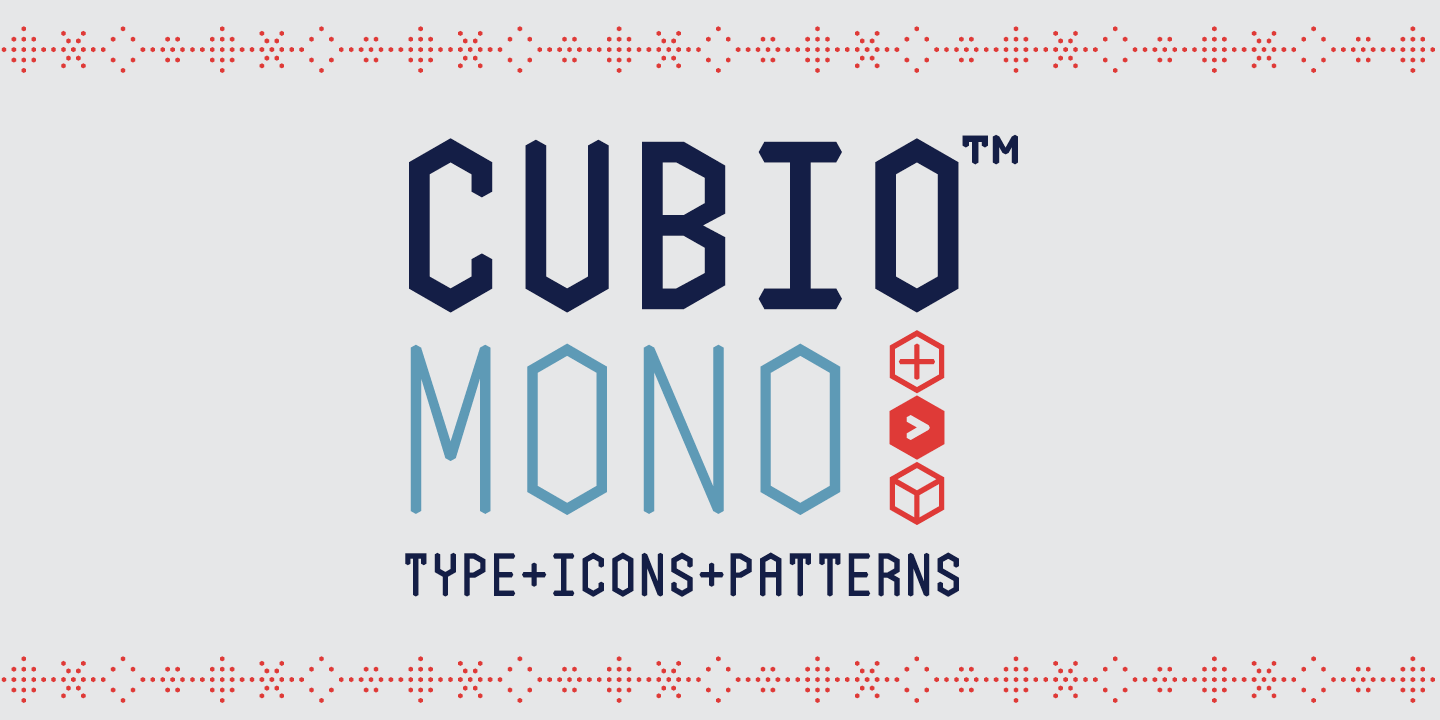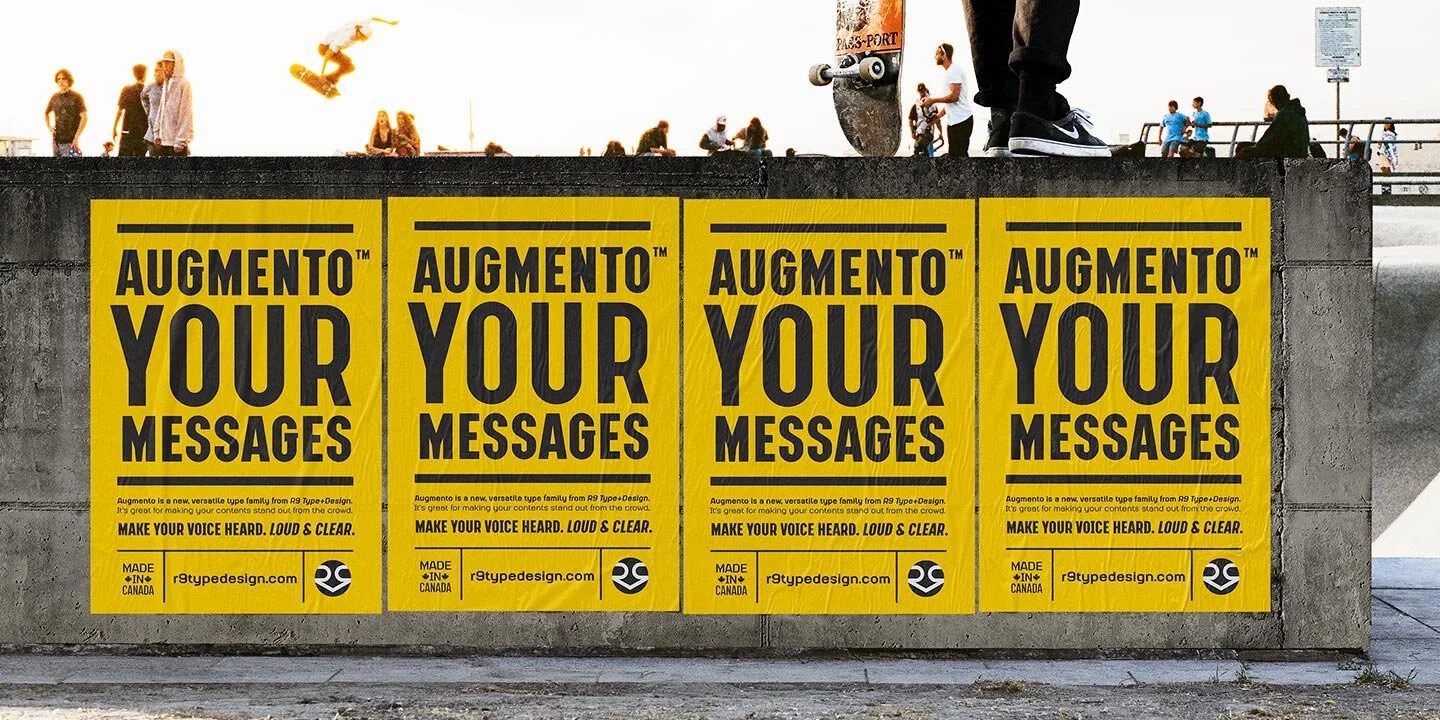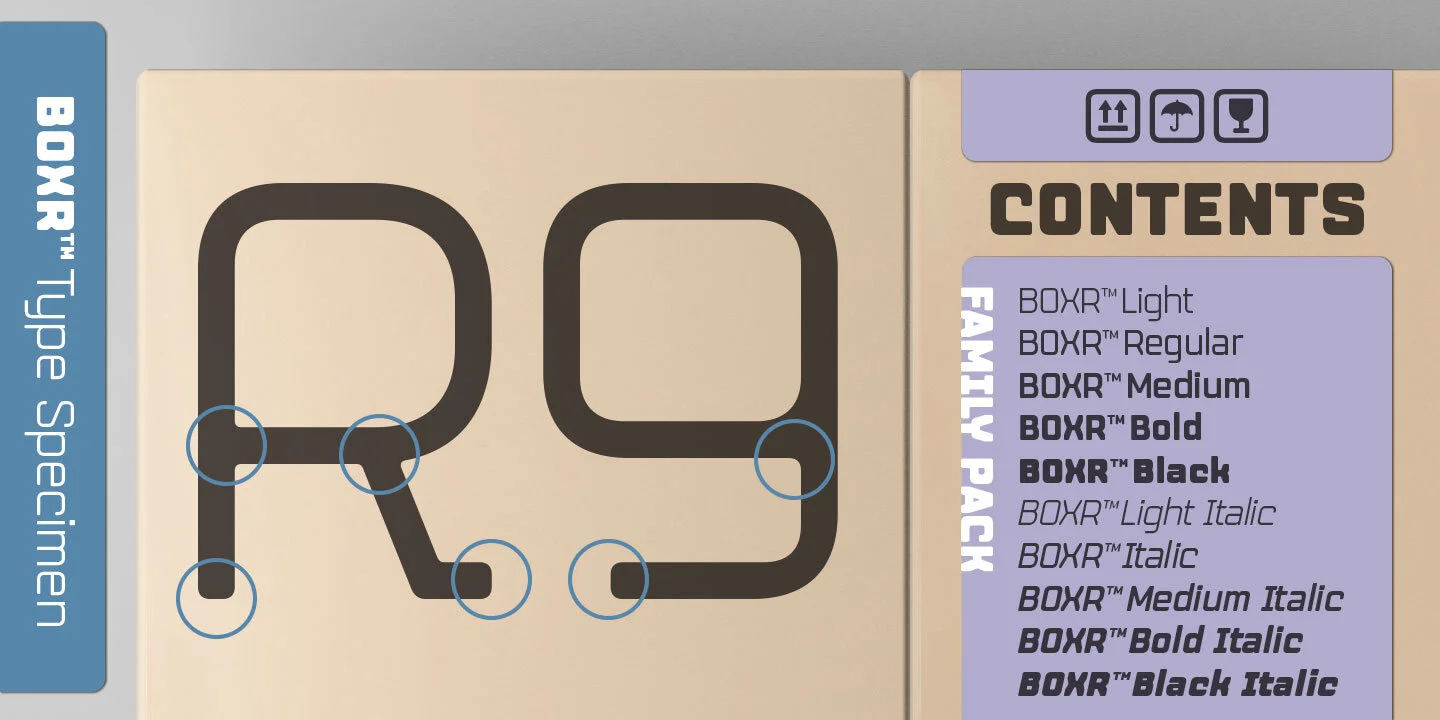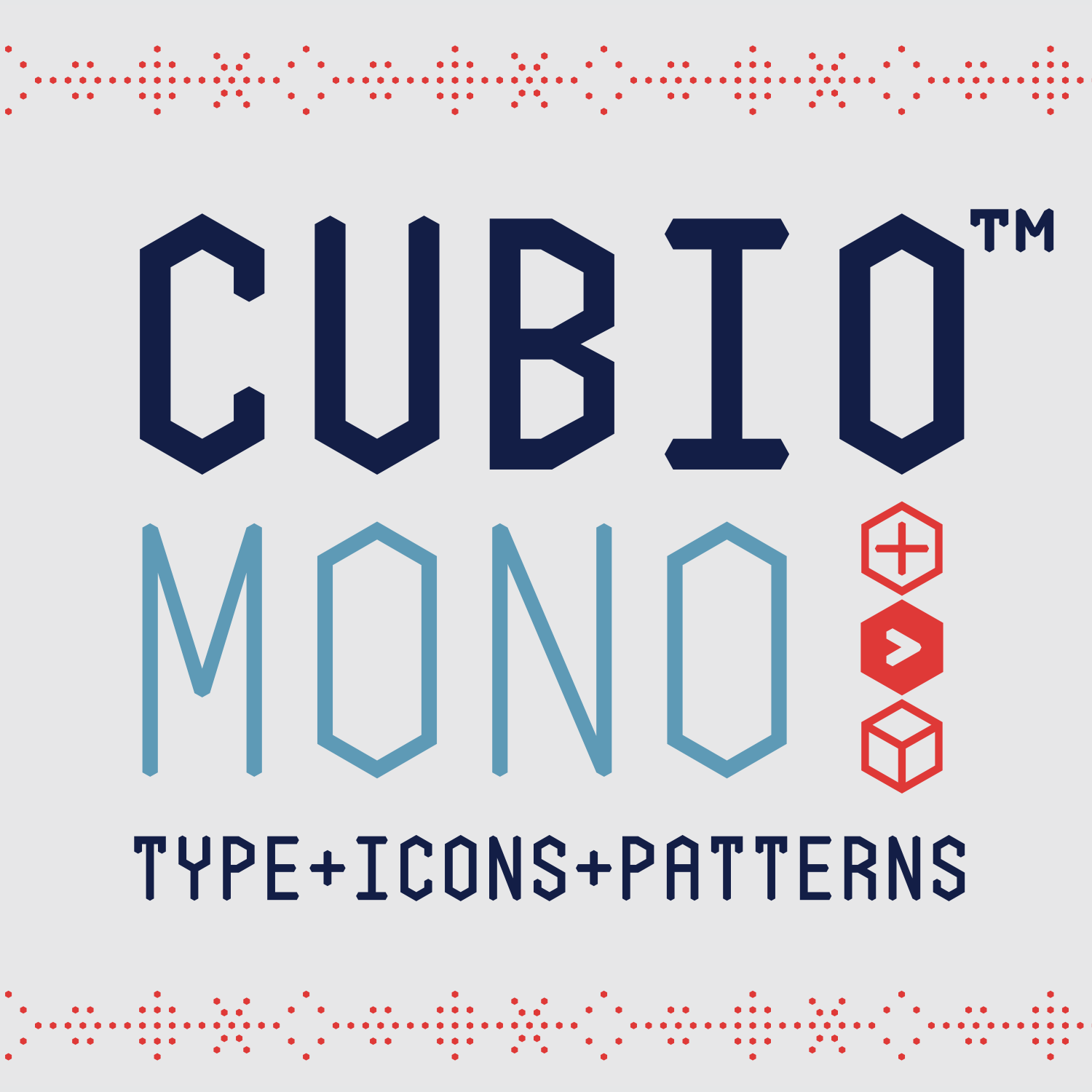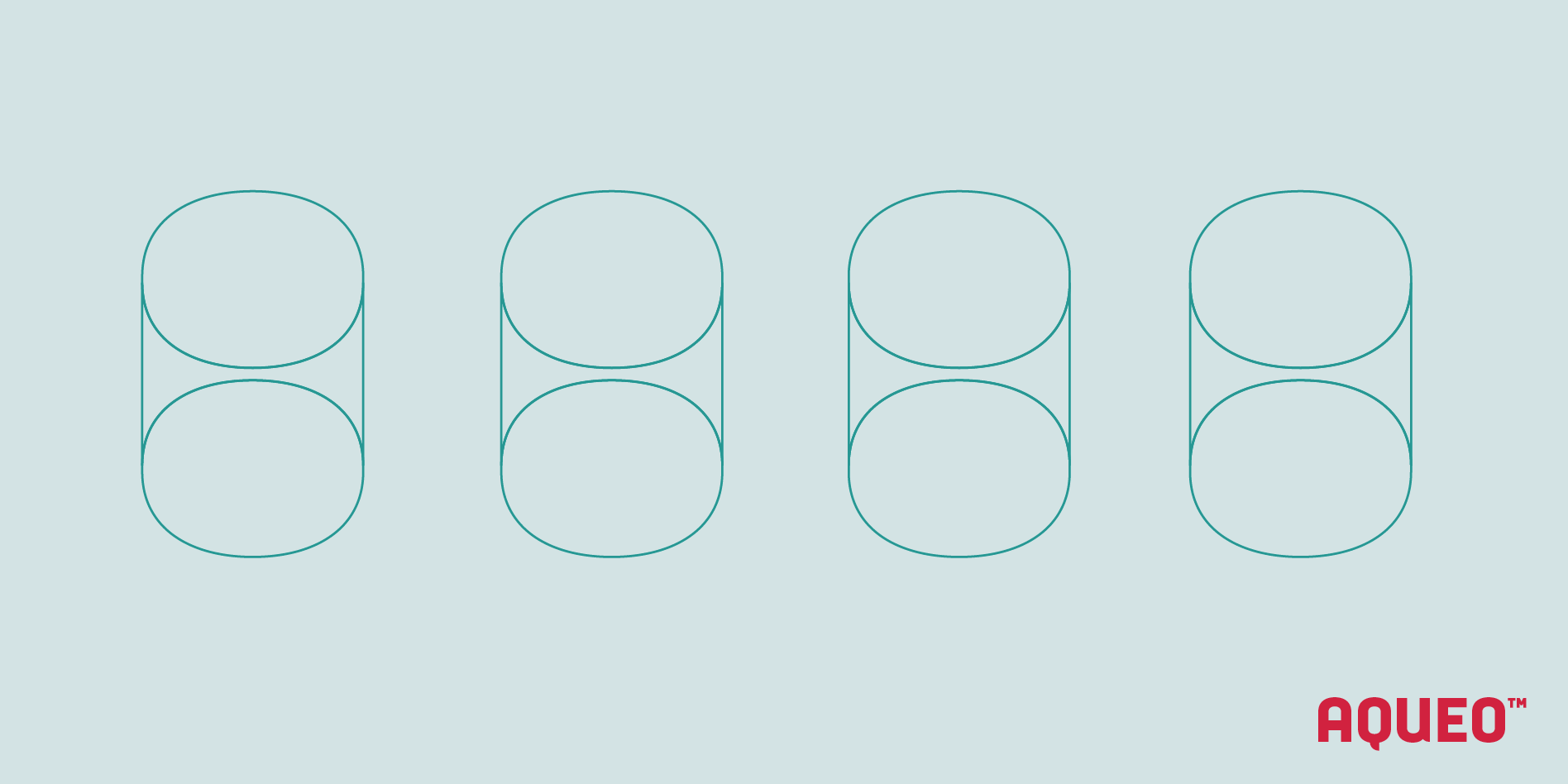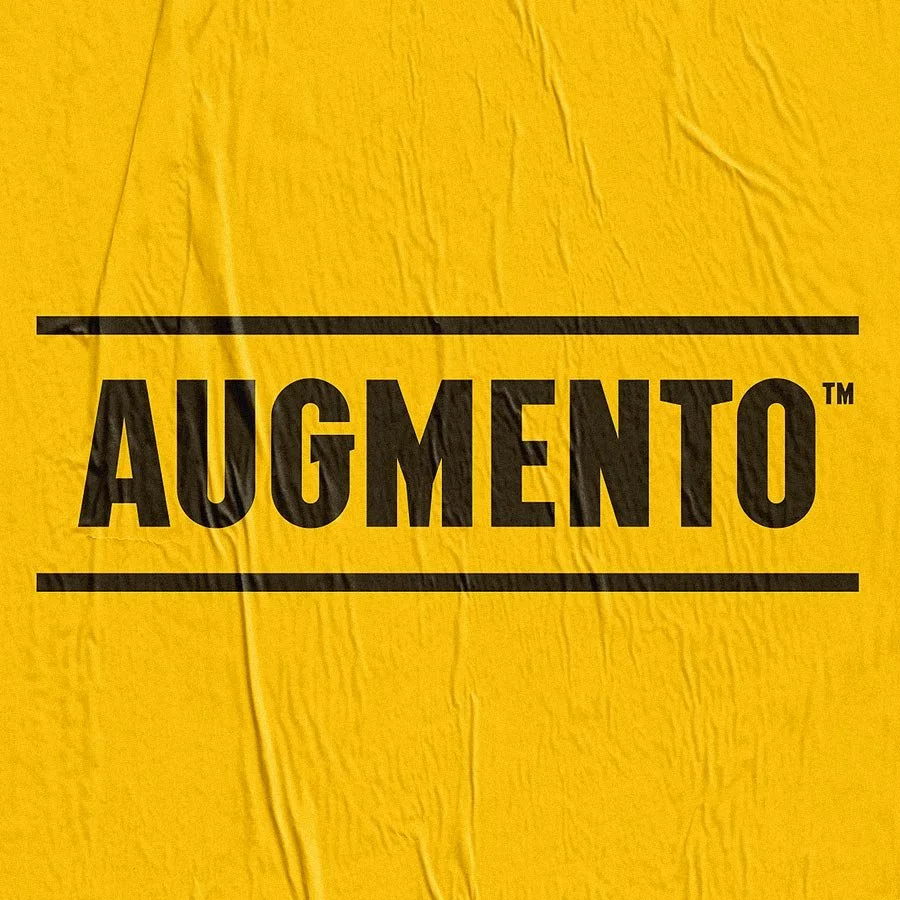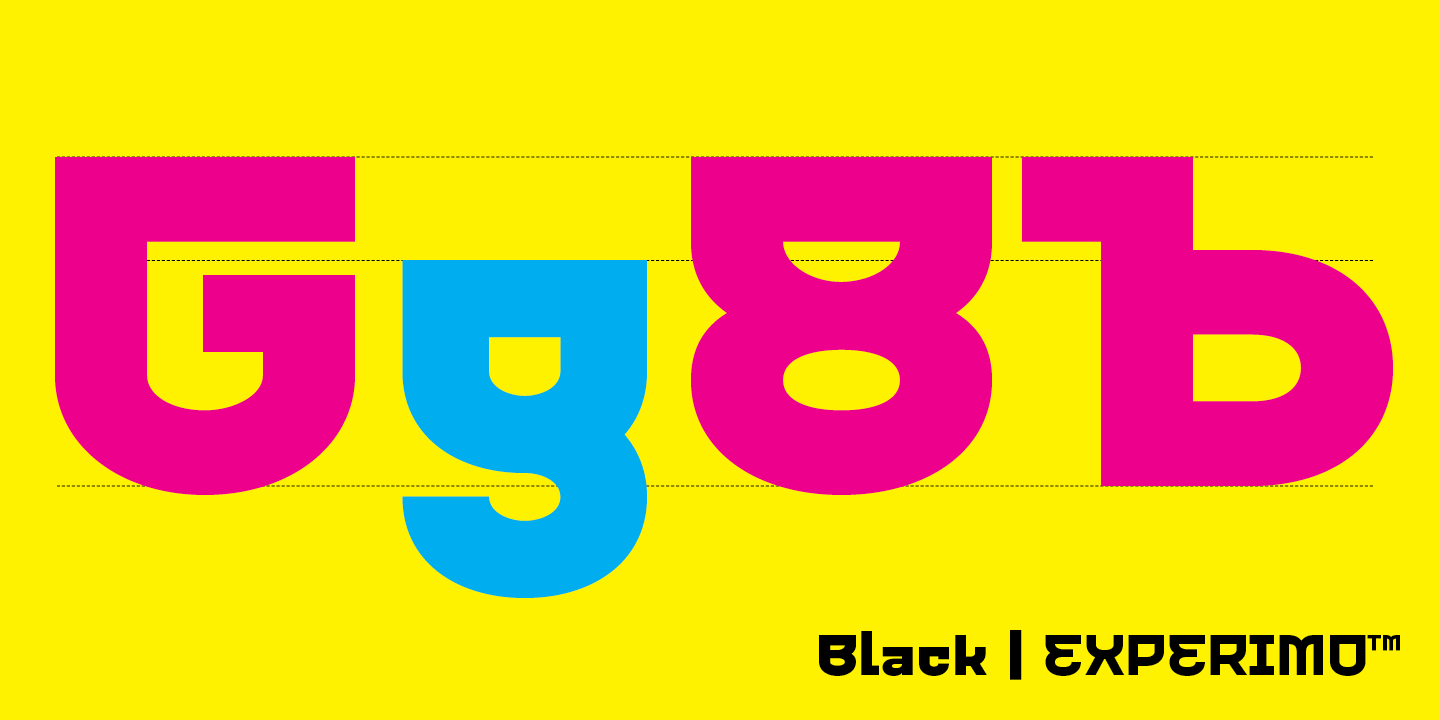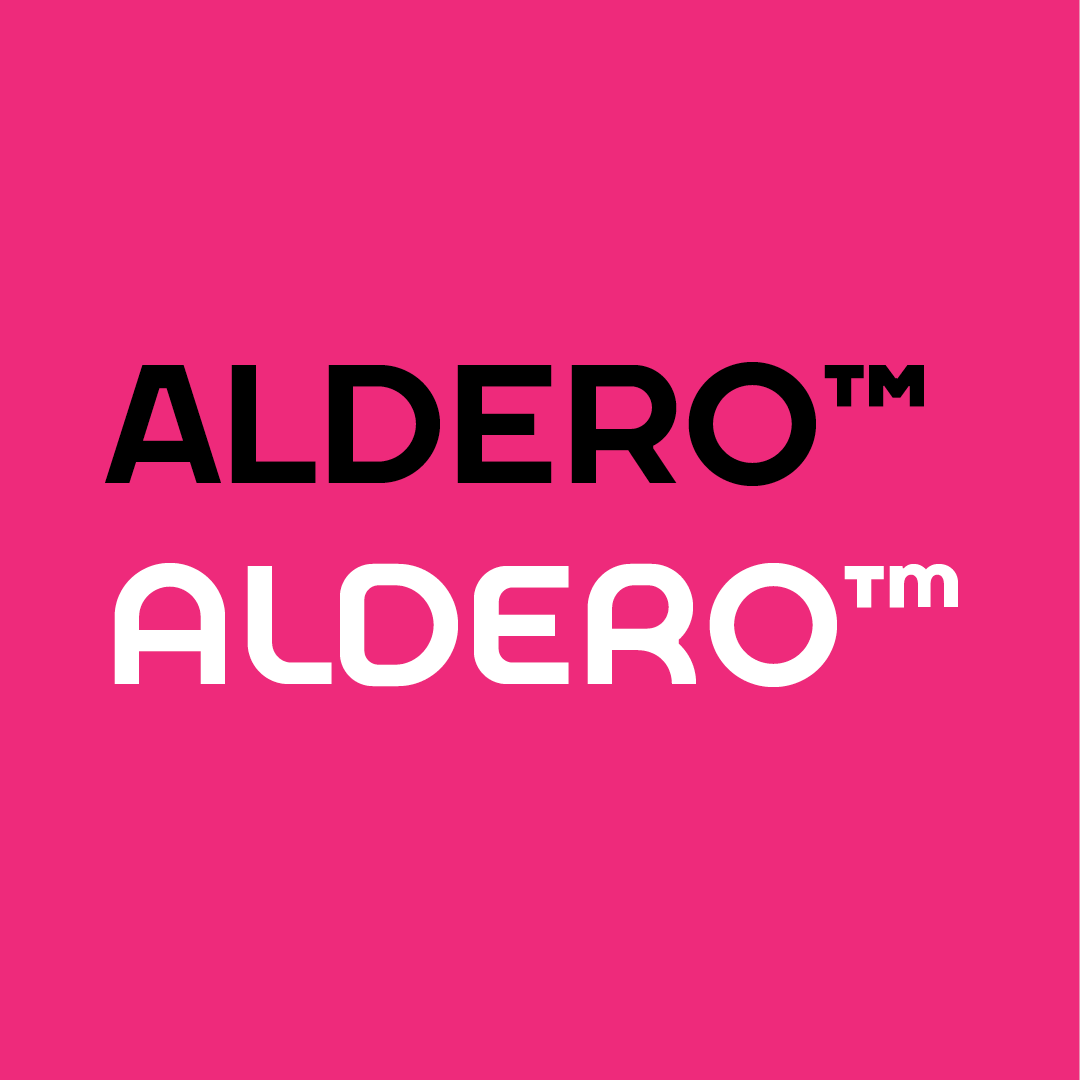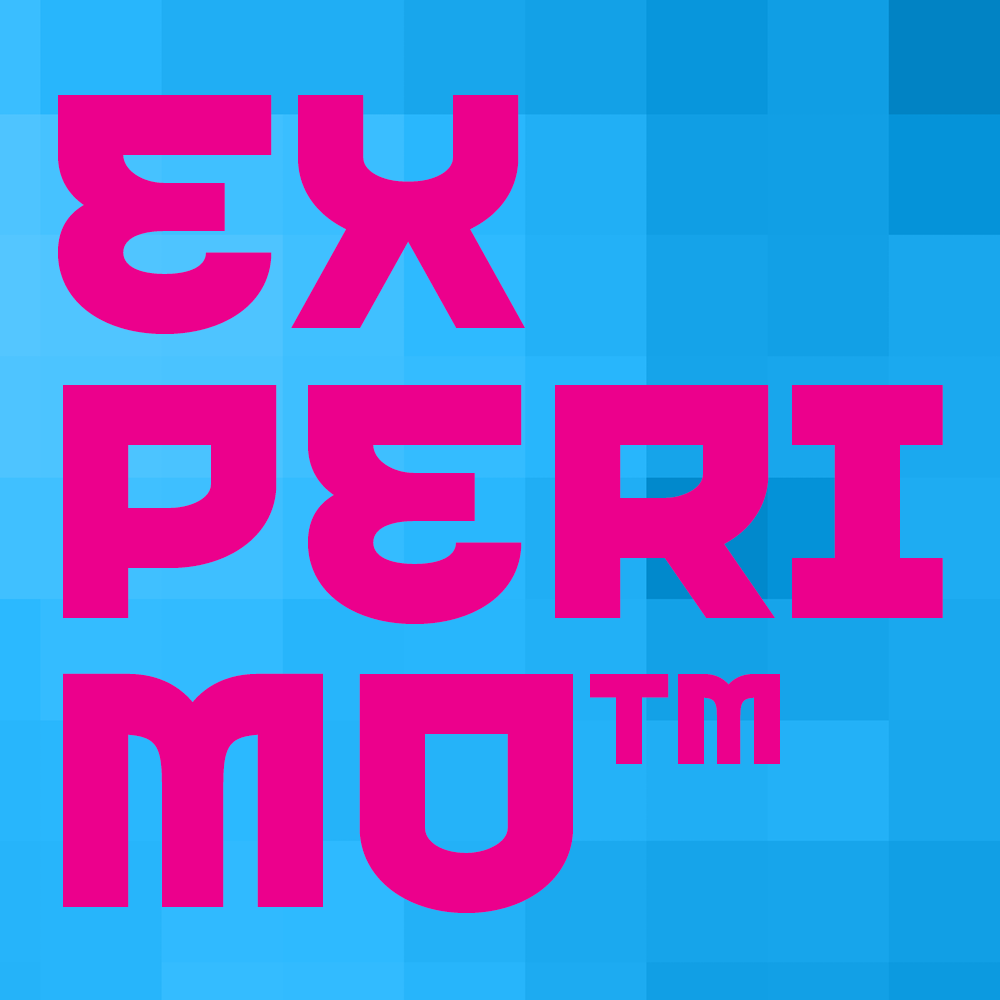
R9 Type+Design is an independent type foundry from Canada. We specialize in modern and contemporary typeface/font designs.
R9 Type Design: A Canadian Type Foundry | High-Quality Retail & Custom Fonts
R9 Type+Design is a Vancouver-based independent type foundry from Canada. We specialize in retail fonts and custom typeface designs.
We are a Canadian type foundry
that crafts unique retail and custom fonts.
Our mission is to create typefaces that find
the perfect balance between form and function.
That's why we make sure our fonts are not only meticulously crafted, but also easy to use, and packed with features and options. Our collection, such as Alio™, Augmento™, Cubio™ Mono, Aldero™, Boxr™, Aqueo™, and Experimo™, are all carefully developed to meet our high standards, ensuring they will exceed yours.
This animated GIF shows the Experimo font family in all six weights, highlighting its display sans serif style.
Experimo™ Display Sans Serif + Icons
Experimo™ is an experimental display sans serif font family that celebrates the unconventional contrast between round and rectangle shapes. This font family is loaded with font features and an extensive set of icons to extend its versatility. With its modern and futuristic feel, this playful and eye-catching typeface comes with 6 weights, a wide range of stylistic alternatives, and over 1,325 glyphs. Experimo™ also supports most Latin and Cyrillic languages.
We are honored that Experimo was selected for “Steven Heller's Font of the Month” column, where he praised its "eccentric" and versatile design. Read his full review on ilovetypography.com>>
This animated GIF shows the Aqueo font family wireframe and design details, highlighting its unique icons.
Aqueo™ Cylindrical Sans Serif Fonts + Icons
Aqueo™ is a versatile display font family inspired by the sleek cylindrical wireframe of a water glass. This font family is loaded with font features and includes a set of essential UX/UI icons. Its one-sided round corners add a contemporary feel to this unique typeface, which comes in 6 weights, 12 styles, and over 1,350 glyphs each. We painstakingly drew a master set for each weight, ensuring the accuracy of every letterform. The font family features an extensive set of stylistic alternates to give your work two distinct personalities. While the standard uppercase set takes more traditional forms, the alternate uppercase set uses lowercase forms redrawn to the same height as the uppercase, offering a truly unorthodox and playful design. Find your next creative solution with Aqueo™!
This is a type specimen of the Boxr™ font family, showcasing all five weights and ten styles.
Boxr™ Contemporary Rectangular Sans Serif + Icons
Boxr™ is a contemporary rectangular font family that finds the perfect balance between form and feel. This versatile sans serif is loaded with font features and an extensive set of icons. Named for its boxy, square shape, this versatile sans typeface features softened corners and connections to achieve a look that is both clean and corporate, yet warm and friendly. Boxr™ is an excellent choice for a variety of projects, including prints, packaging, editorial, and digital design.
The Aldero font family is a modern geometric sans serif typeface with two distinct style options.
Aldero™ – A Versatile Font Family
Aldero™ is a versatile Canadian geometric sans serif typeface that delivers two distinct looks in every font weight and style, offering double the looks and double the design potential. With over 1,100+ glyphs, this font family is ready for any project. Use the standard glyphs set for formal, corporate feel, or switch to the stylistic alternate set for a fun, friendly, and casual vibe.
The Cubio Mono typeface is a hexagonal monospace sans serif, shown here with its unique icons and patterns.
Cubio™ Mono Hexagonal Fonts + Icons + Patterns
Cubio Mono is a monospace sans serif that comes with tons of font features like a Swiss army knife. It offers a vast toolkit to help you develop your creative modern design. This powerful font family not only supports most Latin-based languages, but also features over 1,500 glyphs, including type, icons, patterns, and box drawing tools. Cubio Mono is the perfect choice for a wide range of your modern print and digital design projects.
The Augmento font family, a contemporary rectangular sans serif, is shown here.
Augmento™– A Contemporary Rectangular Font Family
Augmento™ is a versatile contemporary sans serif typeface that sits on the sweet design spot between formal and casual. This extensive family offers designers the freedom to maintain visual consistency across an entire brand while expressing different moods and tones.
Alio™ Rounded Font Family
Inspired by sleek sans serifs and flowing cursives, Alio™ font family features the best of both worlds. Its hybrid modular design gives you a wide range of alternates and options to play with. This rounded sans serif font allows your creativity to flow freely, enabling you to create a broad range of styles from minimalistic modern to decorative flourish. Alio comes with an extensive set of font features and ligatures, giving you the creative freedom to your design.